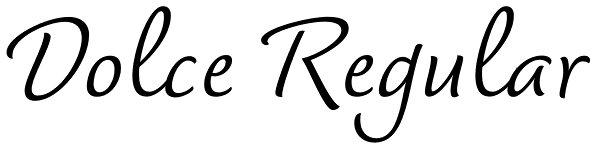
Dolce
Dolce is the next step in Elena Albertoni’s ongoing exploration of handwritten letterforms that started with her typefaces Dyna and Scritta. It is an attempt to arrive at a more naturally flowing type of handwriting, striking a balance between the...